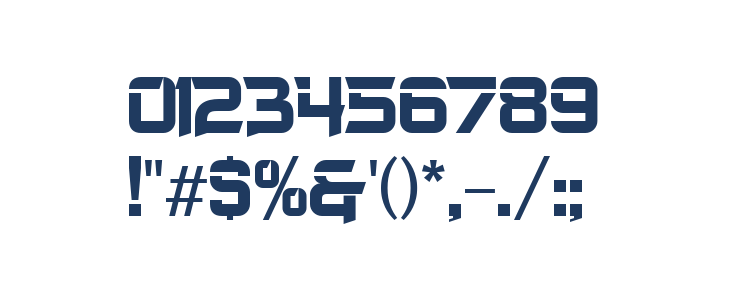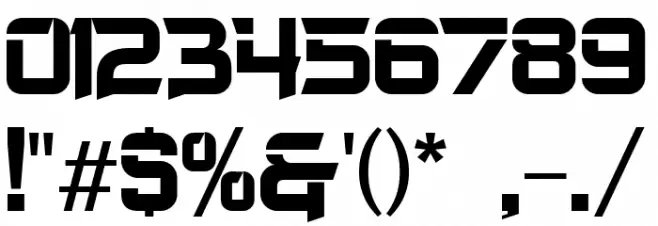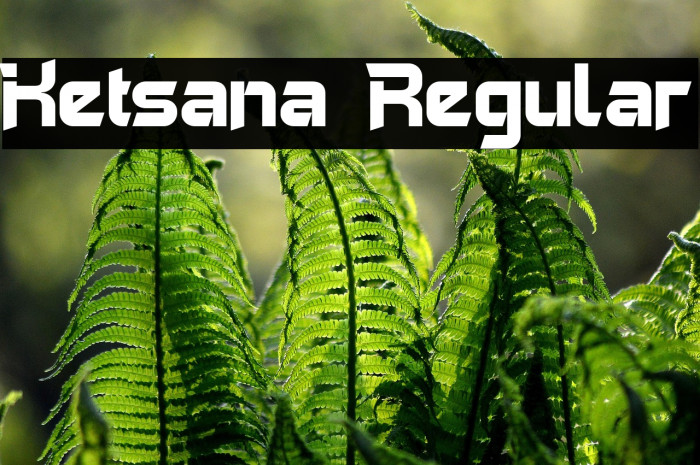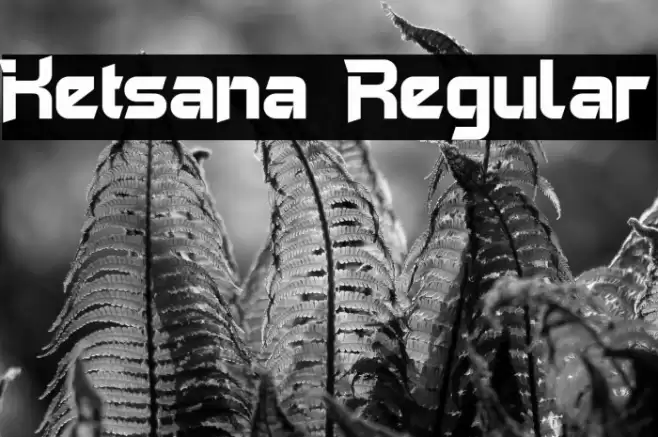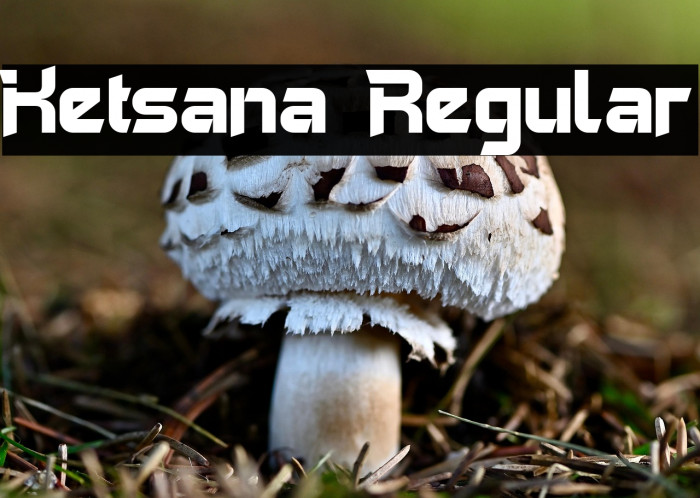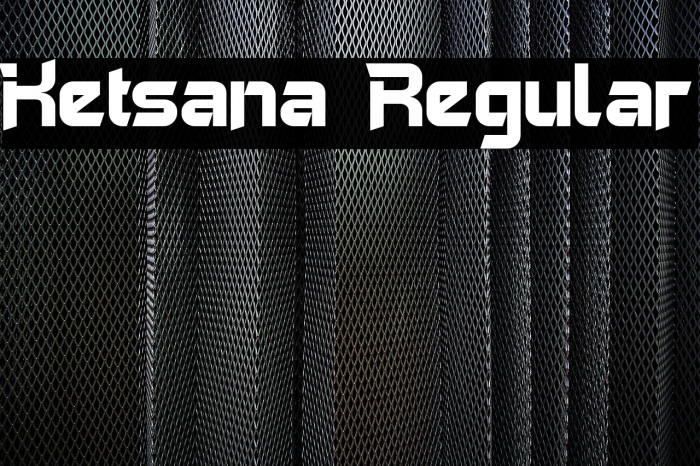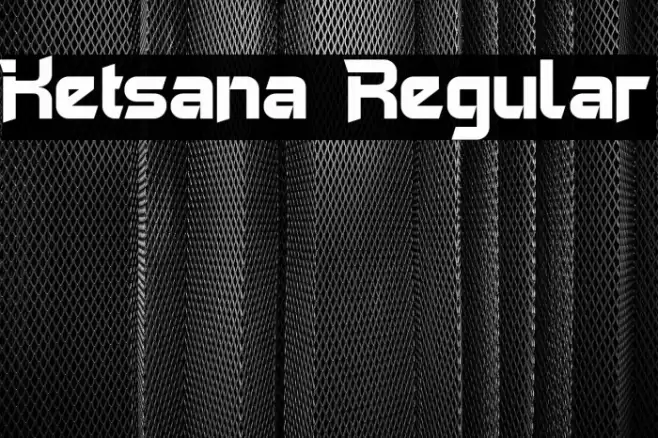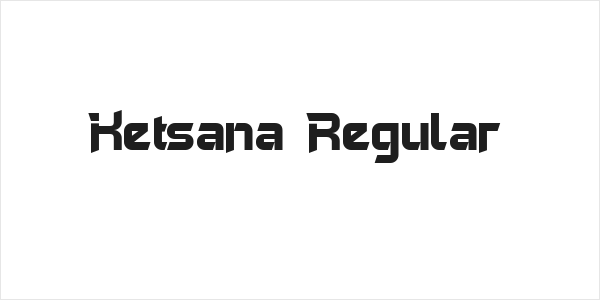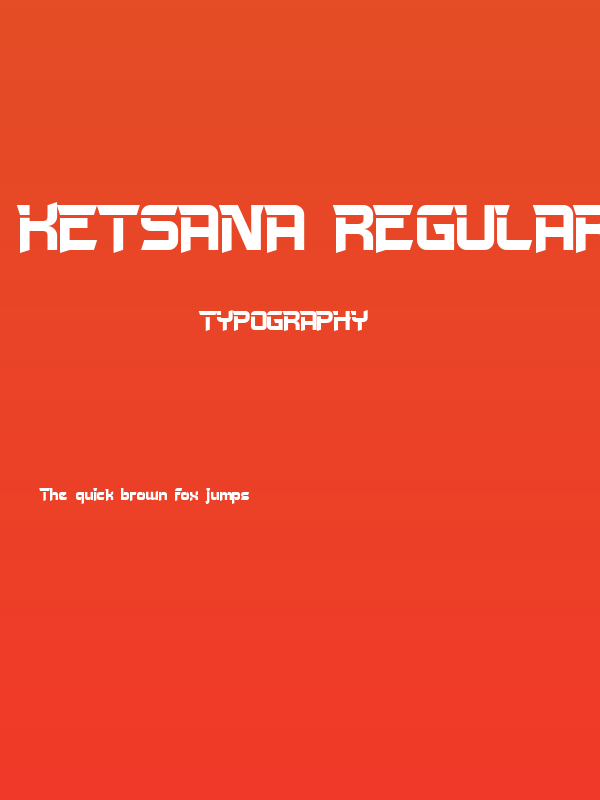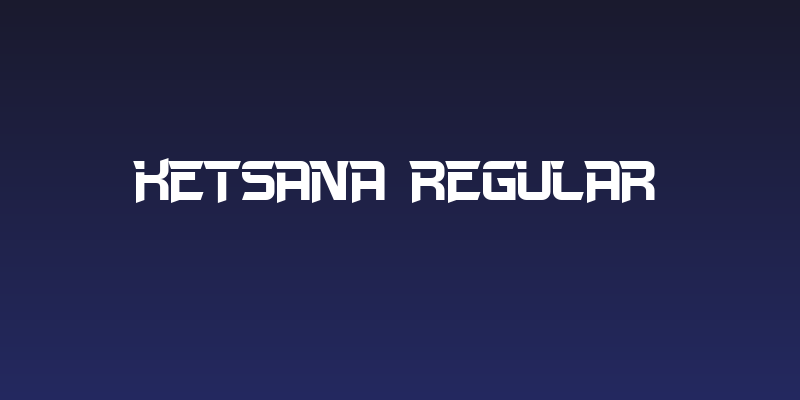
Ketsana Regular Font
Ketsana Regular Description
This font features a bold and angular design, characterized by sharp edges and geometric shapes. The uppercase letters exhibit a futuristic and industrial aesthetic, with a strong presence and a sense of movement. The lowercase letters maintain the same angular style, providing consistency across the typeface. The numerals are distinct and easily readable, following the same design principles. Special characters are crafted with the same attention to detail, ensuring they fit seamlessly with the rest of the font. Overall, this font is striking and modern, making it suitable for projects that require a bold statement.